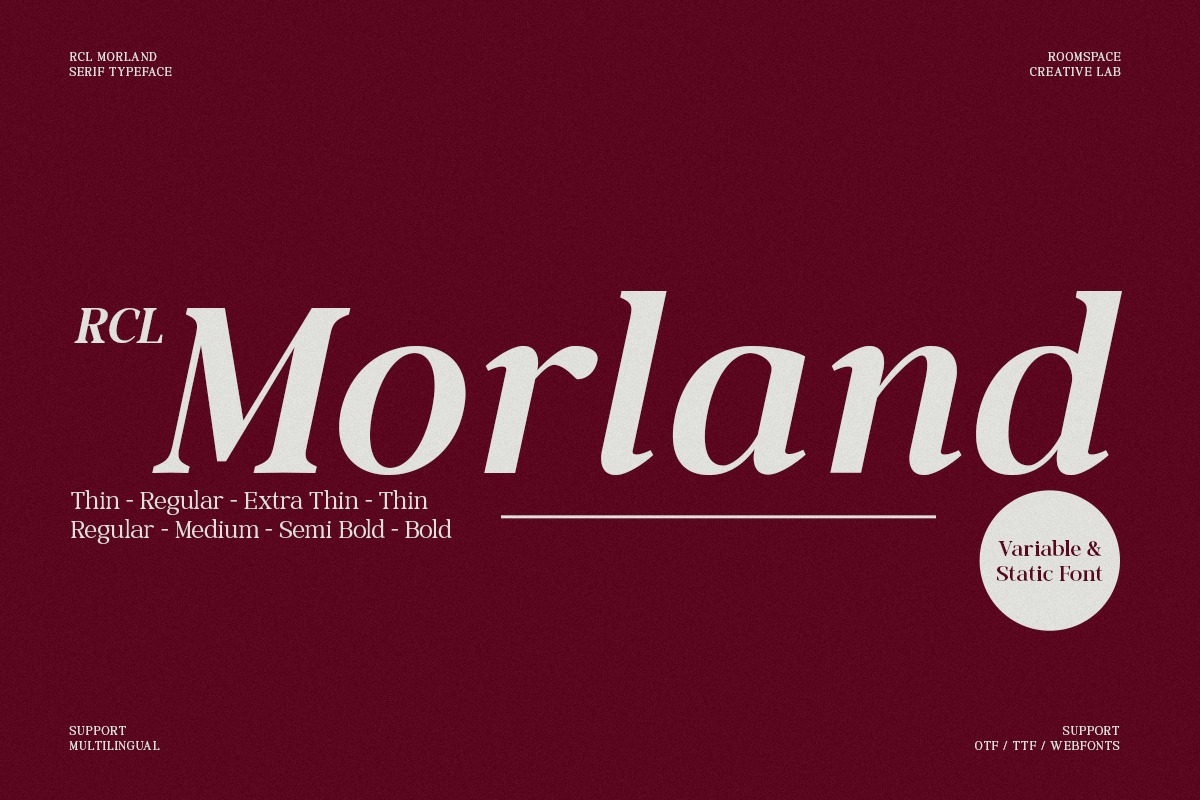
Morland Font
Morland Font is a stylish typeface that enhances visual appeal and works effortlessly in many design contexts. A timeless serif font made for editorial design, branding, and refined visual storytelling.
Meet Morland a modern serif typeface designed to elevate your designs with elegance and clarity. Combining classic serif character with contemporary balance, Morland brings sophistication to editorial layouts, branding systems, and luxury projects. Its clean structure and versatile weights make Morland an ideal choice for designers seeking a timeless yet modern aesthetic.